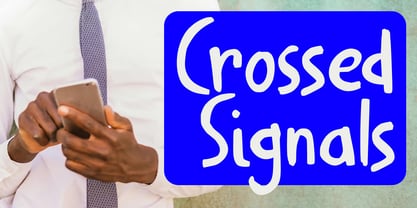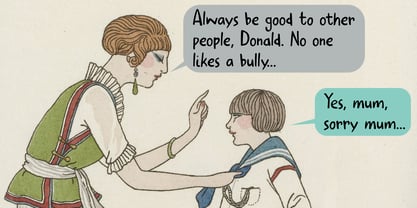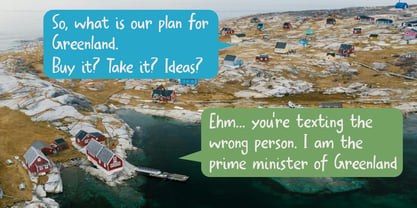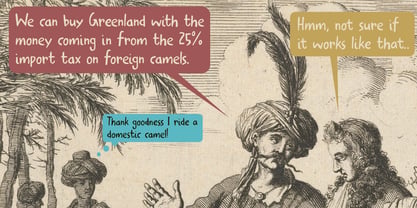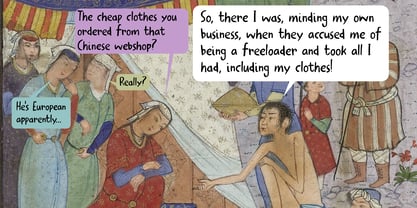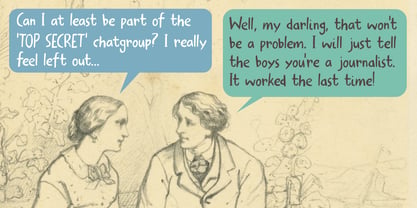
Crossed Signals Pro
The Crossed Signals Pro Font Family was designed by David Kerkhoff and published by Hanoded. Crossed Signals Pro contains 2 styles and family package options. More about this family
In difficult times, one needs a happy font! Crossed Signals was inspired by some bizarre recent events. It is a sloppy, uncoordinated font that would feel at home in comic books or satirical newspapers.
Crossed Signals comes with a full set of auto-rotating alternate glyphs and great language support. In fact it comes with the best language support.
Hanoded is run by Dutchman David Kerkhoff. His fonts are a mishmash of styles, as he just creates whatever pops into his head. You will find a lot of brush fonts in his collection, as his favourite tools are brushes and Chinese ink, with cartoon style fonts and script fonts complementing his repertoire. Aside from making fonts, David occasionally guides tours in far-flung places, renovates his '30's house and tries reasoning with his wife and (teenage) kids. Not an easy task!